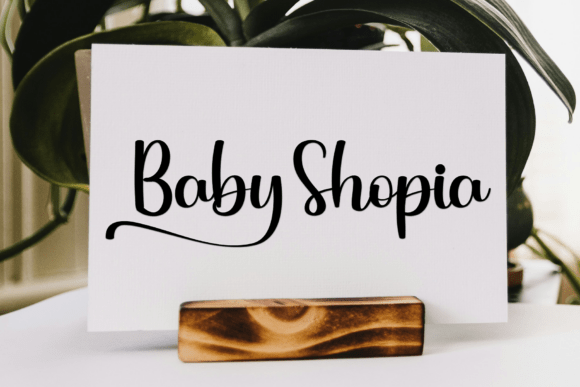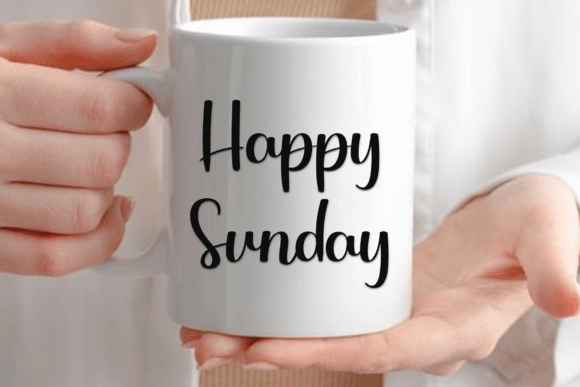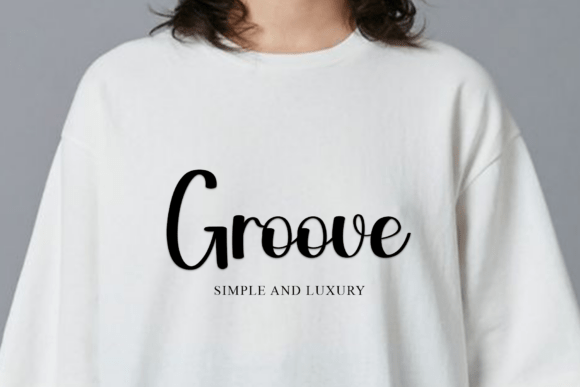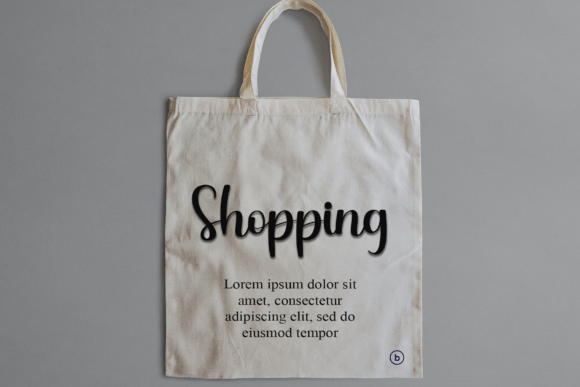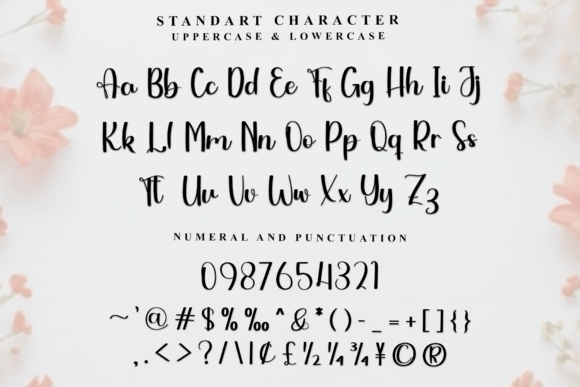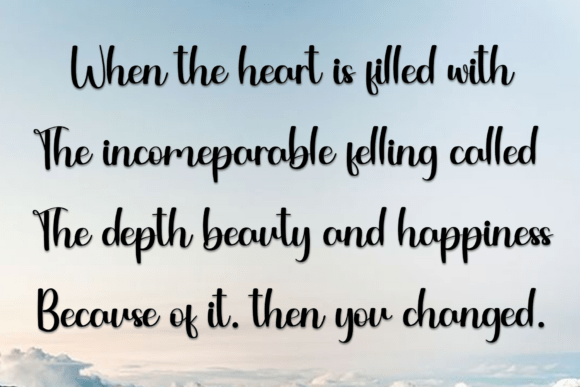
A Warm Welcome: Discovering the Perfect Font for Your Next Creative Project
Have you ever stared at a blank page, desperately searching for the perfect font to bring your ideas to life? You know the feeling – like a missing puzzle piece that’s just out of reach. That’s where the Aurora Chubby Font comes in, a charming and creative typeface that exudes warmth and friendliness. Its round, playful strokes are designed to create a relaxed and approachable feel, making it perfect for personal projects, invitations, and social media graphics.
The Aurora Chubby Font is a valuable addition to any designer’s toolkit, offering a unique and hand-drawn aesthetic that adds a fun touch to any design. With standard PUA Encoded glyphs, it’s compatible with a range of application engines, including Adobe Photoshop, Corel, and Adobe Illustrator. Whether you’re a seasoned pro or just starting out, the Aurora Chubby Font is sure to inspire your next creative project.
Aurora Chubby Font Key Features
- Font Style: A unique, chubby font with a playful and elegant feel, suitable for various design applications.
- Character Set: Includes a comprehensive set of characters, including uppercase and lowercase letters, numbers, and punctuation marks, as well as special characters and symbols.
A Designer’s Review of Aurora Chubby Font
I recently had the chance to work with the Aurora Chubby Font, and I must say it’s a unique and eye-catching typeface. ✨ Here are some of its strengths:
- Unique aesthetic: Aurora Chubby has a distinct, playful feel that sets it apart from other fonts.
- Good for creative projects: Its whimsical nature makes it perfect for projects like children’s books, party invitations, and other creative endeavors.
- High legibility: Despite its chubby appearance, the font is surprisingly easy to read, even at smaller sizes.
- Not suitable for formal projects: Aurora Chubby’s playful nature may not be suitable for more formal projects like business reports or academic papers.
- Limited language support: I found that the font doesn’t support many languages, which could be a problem for international projects.
- May not be ideal for small text: While the font is legible, it may not be the best choice for small text sizes, where the “chubbiness” can become overwhelming.
Overall, I think Aurora Chubby is a fun and creative font that can add a unique touch to the right projects. While it may not be the best choice for every project, it’s definitely worth considering for the right kind of creative endeavor.
Getting the Most Out of Aurora Chubby Font
To get the most out of the Aurora Chubby font, use it in combination with other design elements, such as bold text and images. This will create a visually appealing and unique design. You can also experiment with different font sizes and styles to add depth and interest to your design.
The Aurora Chubby font is ideal for use in creative and artistic projects, such as invitations, posters, and social media graphics. It is also suitable for use in editorial and design projects, such as magazines and brochures.